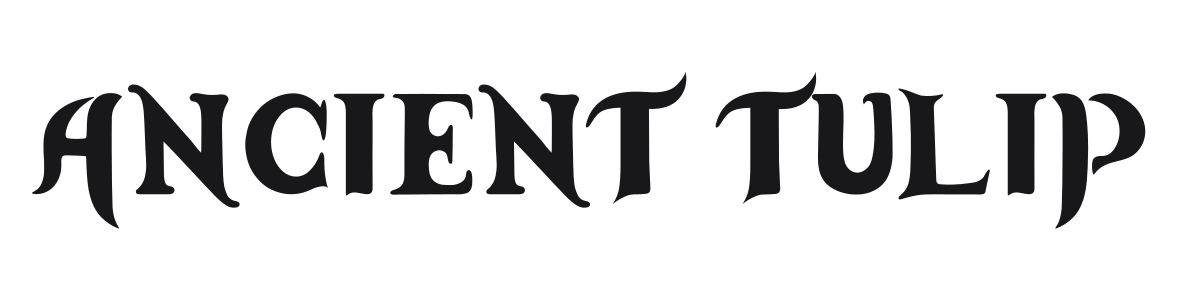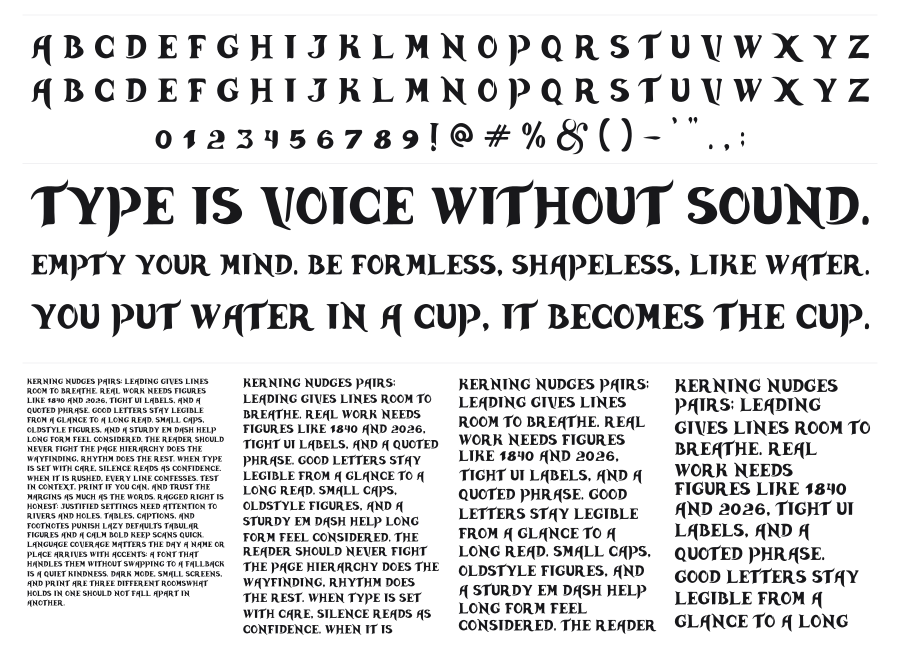
Ancient Tulip
Ancient Tulip is a bold ornamental display serif with dramatic flared serifs and sweeping blade-like terminals drawn from medieval and Art Nouveau traditions. The high stroke contrast and heavy weight give it an authoritative, almost ritualistic presence at large sizes. Strong choice for fantasy branding, editorial titles, or any project that needs a sense of ancient drama.